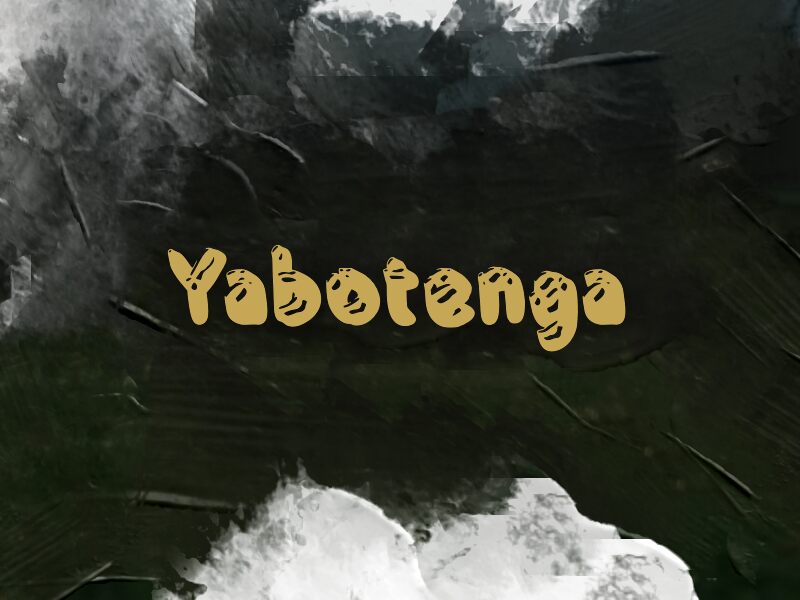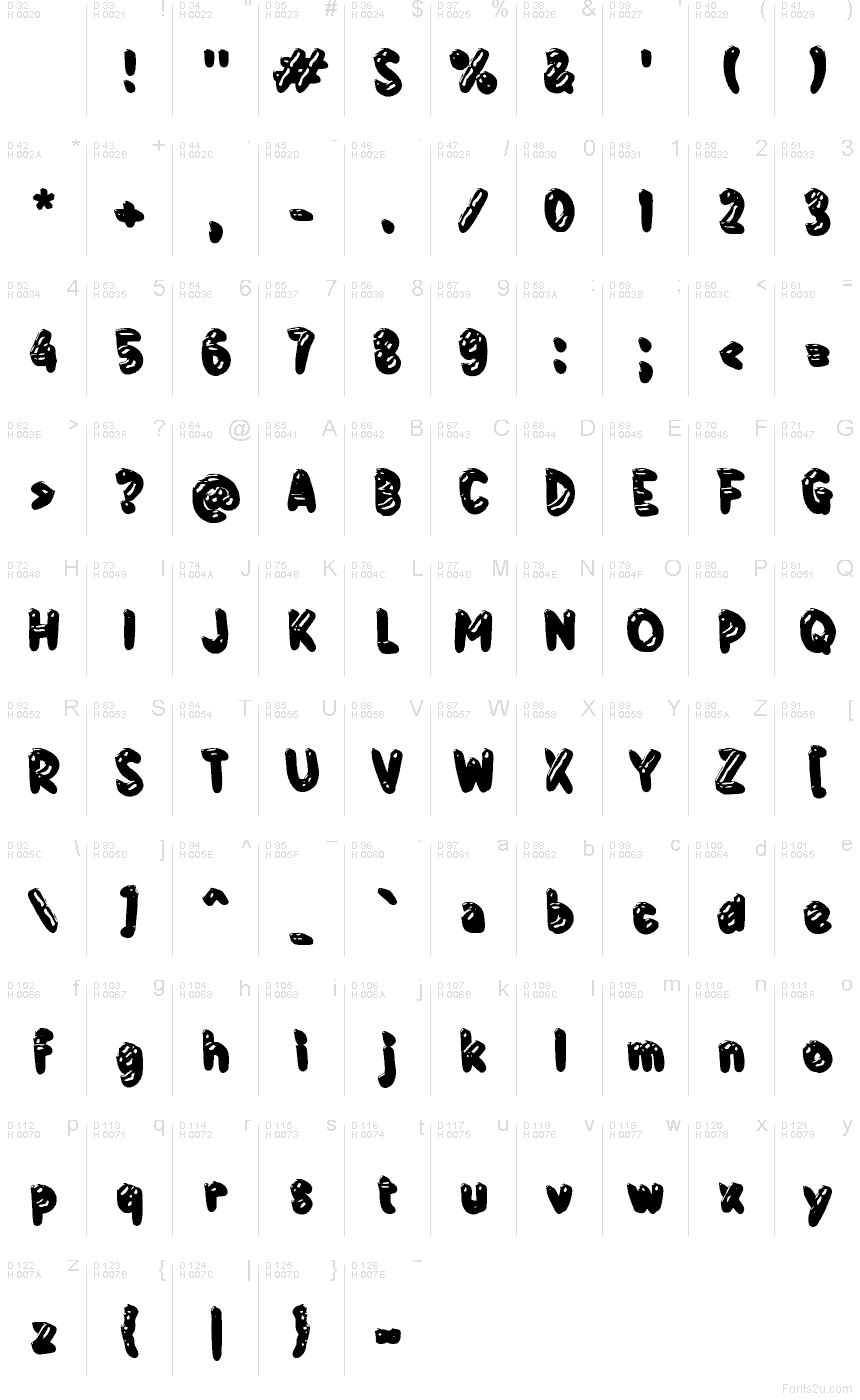
Yabotenga, a free blob-like distorted display font by Wep, leans into swollen, melted letters with a cartoonish, creature-feature wobble. The forms feel soft and heavy at once, with rounded silhouettes, pinched joins, and irregular cut-ins that make the whole font look as if it is slowly slumping under its own weight.
That gives this free font a natural place in poster headlines, album covers, party flyers, title cards, and short packaging names where the letters can behave like graphic shapes. It also suits logo experiments and brief cover lines, especially when you want a word to feel gooey, odd, and a little mischievous without turning into pure novelty.
Yabotenga